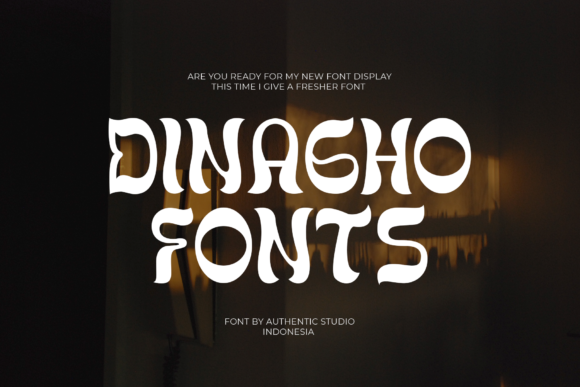
Behold Dinagho, a visual masterpiece that will ignite your imagination and elevate your designs to new heights. This captivating display font, crafted by the skilled artisans at Authentic Studio, is a symphony of creativity, beckoning you to explore its boundless possibilities.
With its bold and audacious strokes, Dinagho commands attention, demanding to be seen and admired. Its unique and eye-catching letterforms are a feast for the eyes, inviting you to embark on a journey of visual exploration. Whether you're a seasoned designer or just starting out, Dinagho is the perfect companion for your creative endeavors.
As a display font, Dinagho excels at grabbing attention and making a statement. Its larger-than-life presence is ideal for headlines, posters, logos, and branding, where you want to make an immediate impact. Its robust and sturdy structure ensures that your message will be conveyed with power and authority.
One of the remarkable attributes of Dinagho is its versatility. This font is a chameleon, seamlessly adapting to a wide range of design styles and themes. Its inherent beauty shines through, whether you're creating a playful and whimsical design or a sleek and sophisticated one. Dinagho is the epitome of adaptability, making it an indispensable tool in your font collection.
With Dinagho, you unlock a world of endless creative possibilities. Its bold and confident nature is perfect for creating designs that exude confidence and strength. Its playful and energetic vibe is ideal for adding a touch of fun and excitement to your projects. The possibilities are truly limitless, bound only by the confines of your imagination.
So, embrace the allure of Dinagho and unleash your creativity. Let this exceptional font ignite your passion and fuel your design aspirations. With Dinagho by your side, you'll embark on a journey of visual exploration, leaving a trail of stunning creations in your wake. Seize the opportunity to make a lasting impact, to captivate and inspire your audience with every design you create.